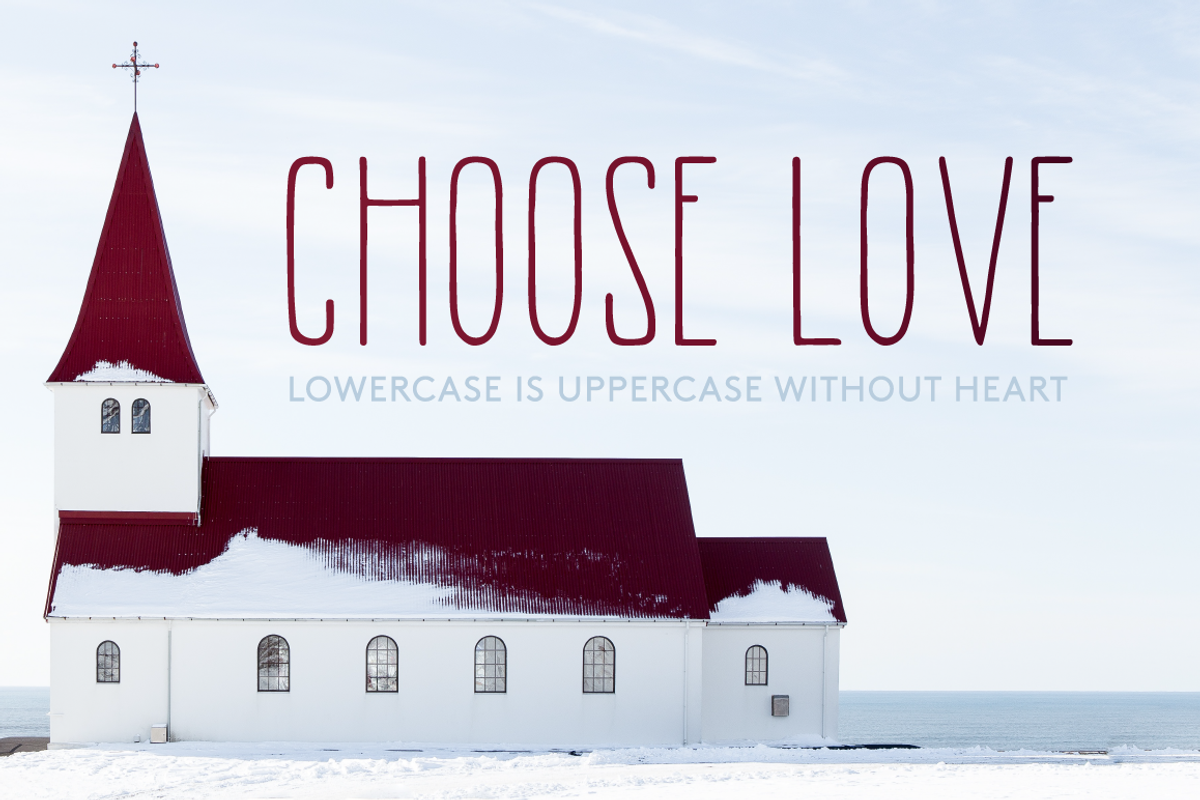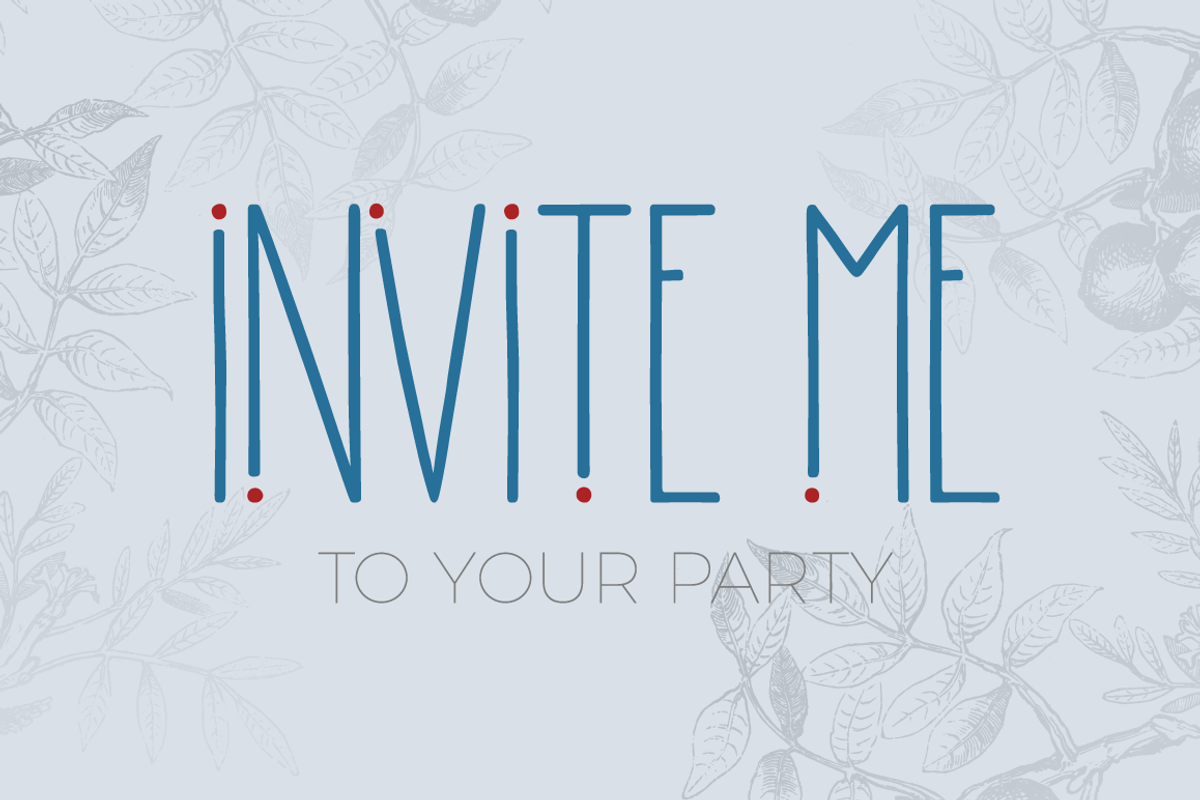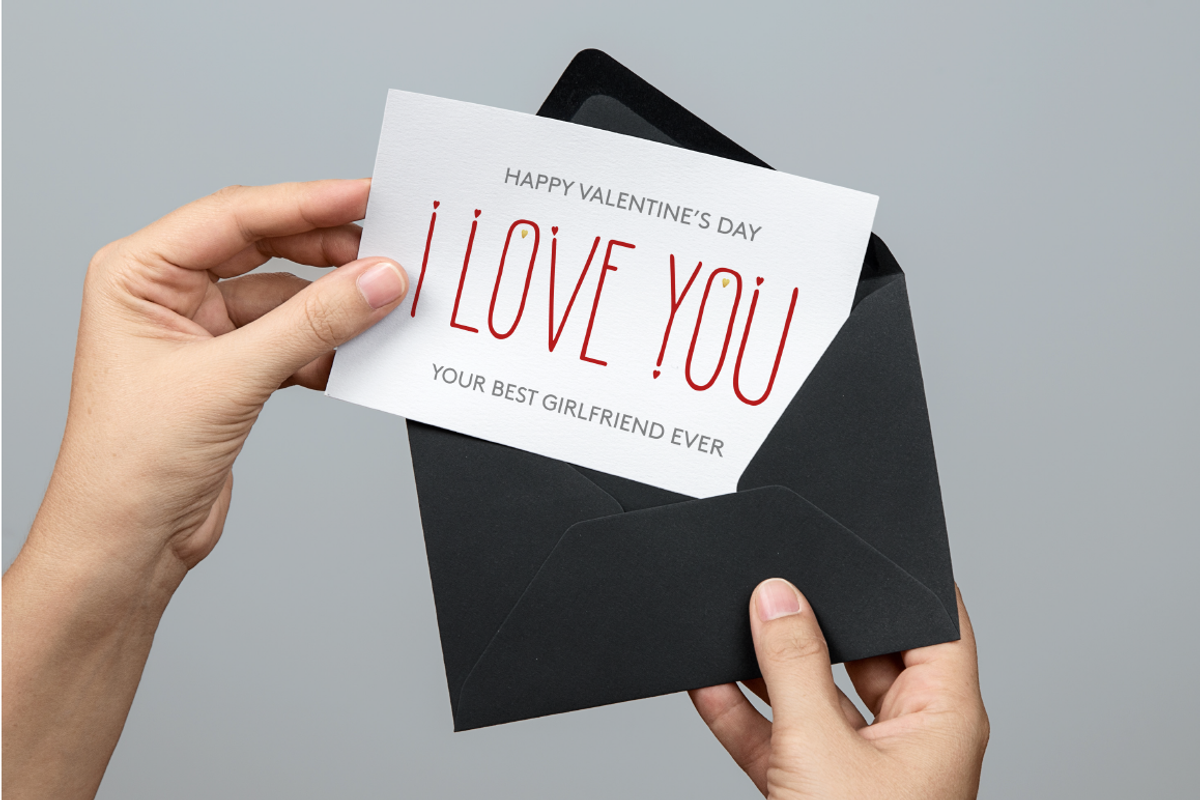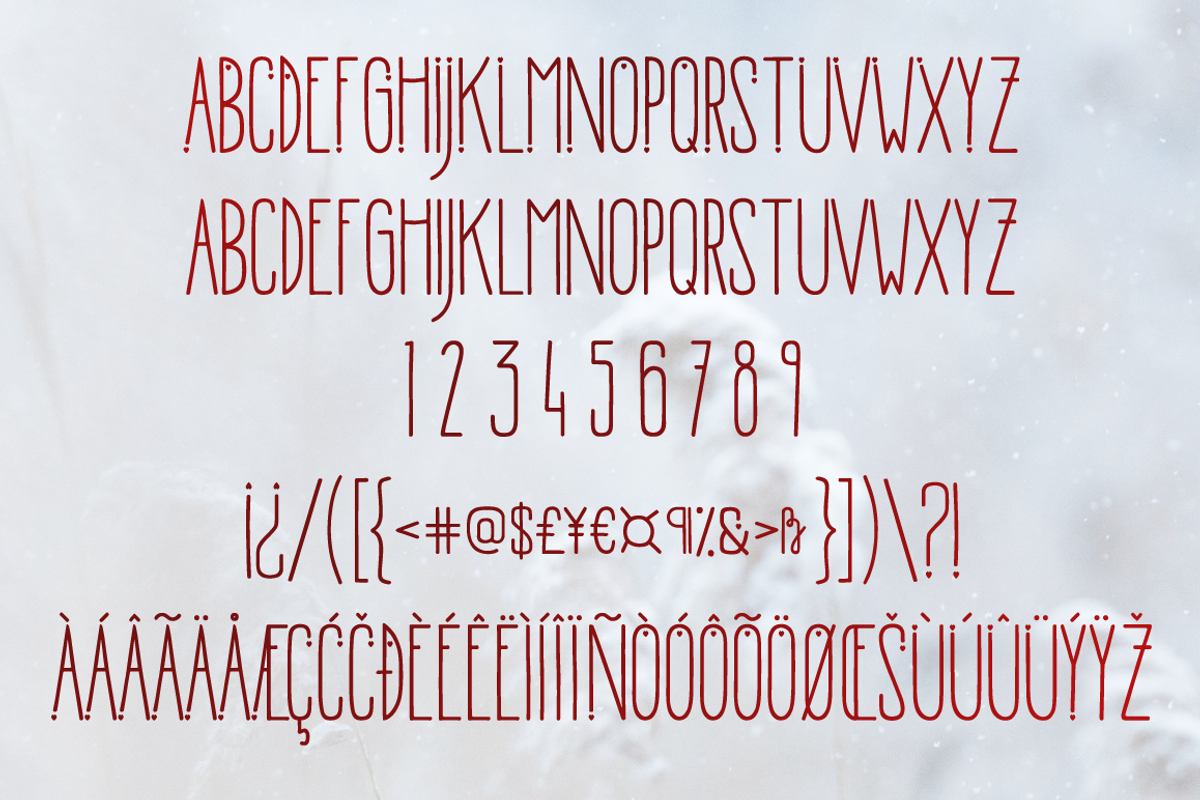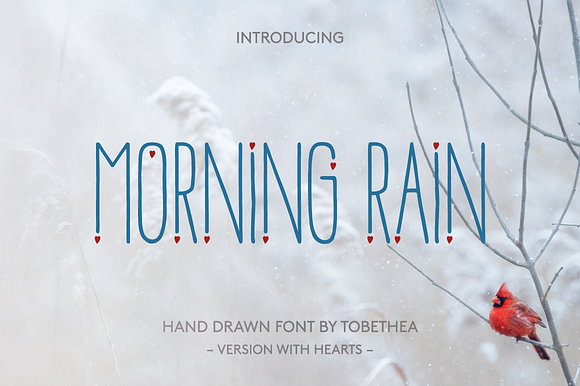
Morning Rain Heart Font
MorningRain is a cute handwritten font with stylish hearts. It is very suitable for branding, merchandise, product packaging, name tags, quotes, business cards, invitations ... The font is best to use in big titles, headlines, etc. Try to color the hearts in different color and make your title even cuter :)
MorningRain consist of uppercase letters (lowercase glyhps are uppercase without hearts). Also includes glyphs for multilingual support.